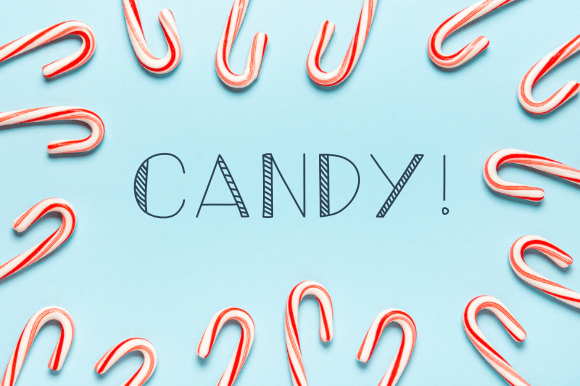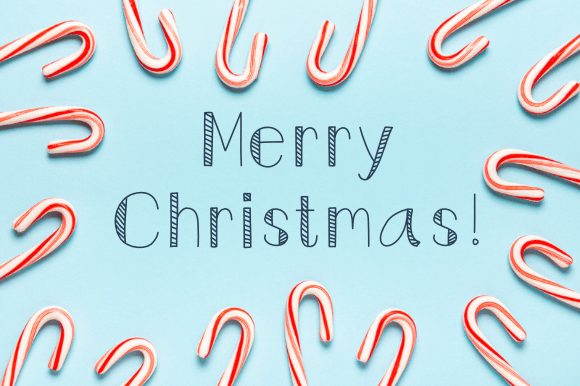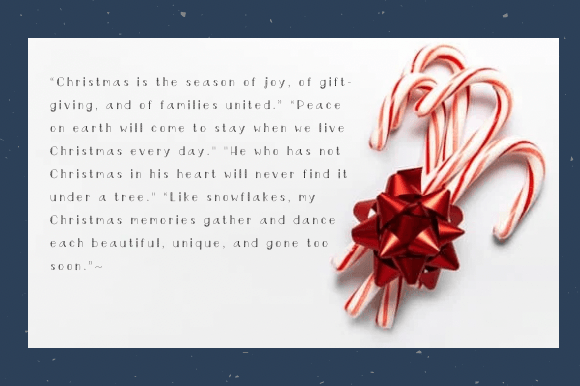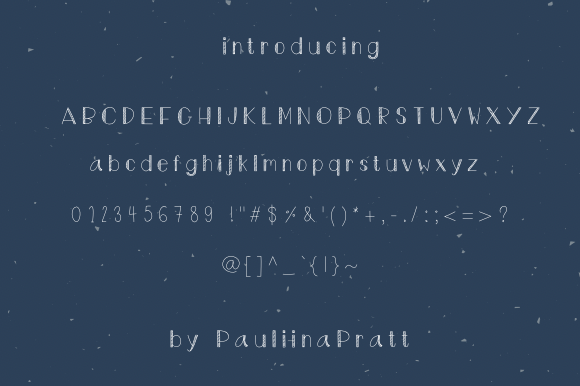
About Candy Font
Introducing “Candy,” an endearing handwritten font that exudes cuteness and charm. With its meticulously crafted, well-balanced characters, this font is the perfect choice for a wide variety of creative projects. From crafting Christmas crafts to adorning festive decor and beyond, “Candy” adds a delightful touch to your crafty ideas.
“Candy” is more than just a font; it’s a design element that effortlessly infuses your creative projects with an aura of whimsy and playfulness. Its adorable characters and handcrafted charm make it an ideal choice for designers seeking to add a touch of cuteness to their work.
One of the standout features of “Candy” is its versatility. Whether you’re writing holiday greetings on Christmas crafts, creating charming labels for festive decor, or dreaming up whimsical typography for special occasions, this font seamlessly integrates into various design contexts, enhancing each project with its distinctive appeal.
This font’s appeal extends seamlessly from traditional print media to the digital landscape. From the pages of a holiday-themed card to the online presence of a crafty blog, “Candy” radiates a sense of cheer and charm. Its readability ensures that your message is conveyed clearly and effectively, while its inherent cuteness adds an extra layer of visual delight.
What truly sets “Candy” apart is its ability to evoke a sense of joy and playfulness. It’s a font that invites your audience to immerse themselves in your creative ideas. With “Candy” as part of your creative toolkit, you can convey your message in a way that resonates with the hearts of all ages.
Furthermore, “Candy” offers a wide array of customization options, allowing you to tailor your text to perfectly match your creative vision. This flexibility empowers you to create designs that are as unique as your artistic imagination.
In conclusion, “Candy” is not just a font; it’s a design asset that infuses your crafty ideas with cuteness and festive charm. Embrace its handwritten style, and let it inspire you to craft delightful and heartwarming designs that leave a lasting impression. With “Candy” by your side, your creative possibilities are endless, enabling you to create works of art that are as cute and charming as they are versatile and joyful.